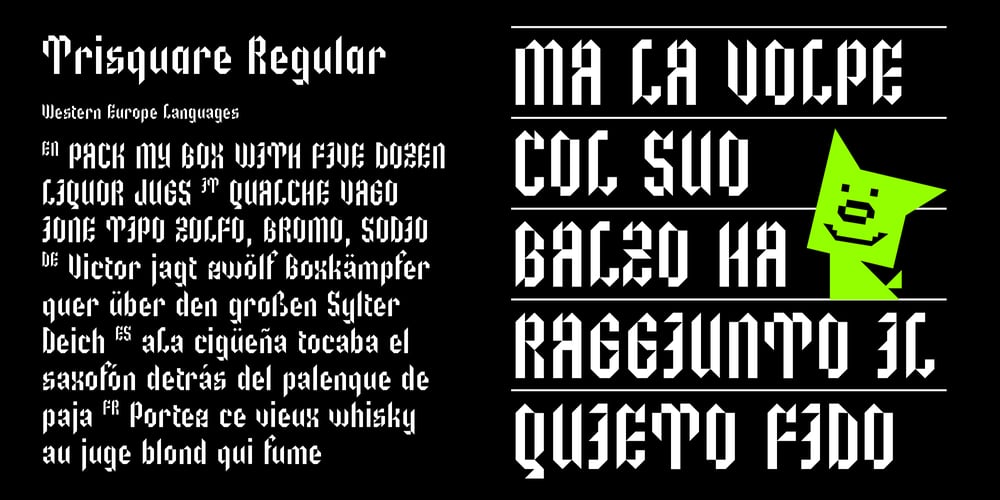
Trisquare Font Family was designed by Davide Romito and published by Davide Romito. Trisquare contains 1 styles and family package options. Trisquare is an Experimental Display Typeface, which is inspired by the strokes of the Fraktur alphabet but developed through the composition of triangular and square shapes. It has a particular ancient soul with a digital taste but is not monospaced. Trisquare is good to use for Branding, Signage, Packaging, Advertising, Headlines, Magazines, Book titles, or everything you want to use it for.